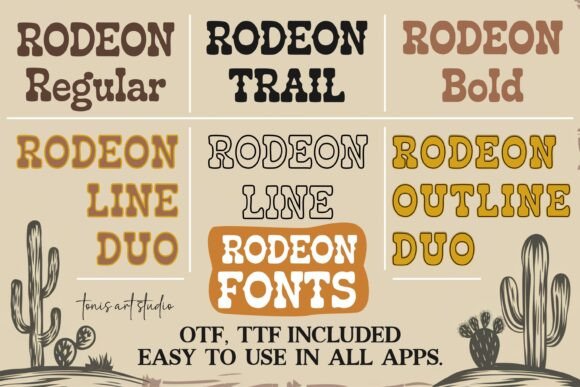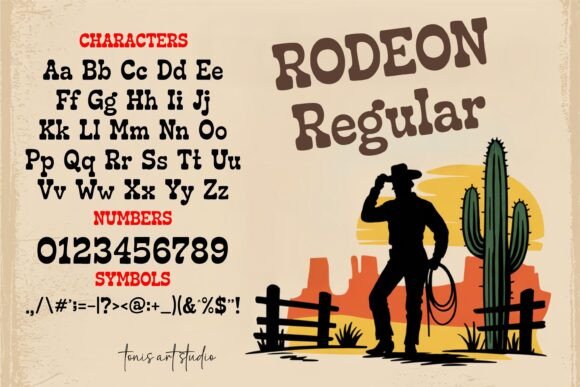
Rodeon Western Bundle Font
Unleash the spirit of the Wild West in your designs with the Rodeo Font Bundle – a meticulously hand-tooled western-style font selection boasting seven robust and rugged serif styles. This distinctive display font collection comes complete with Regular, Bold, Trail, Line, Outline, Line Duo, and Outline Duo variations, each bringing a unique charm to any cowboy-themed apparel, vintage signage, homegrown quotes, or any design with a touch of frontier flare. Whether you’re exploring your creativity with Cricut, drafting on Procreate, or carving out a rustic piece of farmhouse décor, the Rodeo Font Duo’s array of styles benefits any creative project.